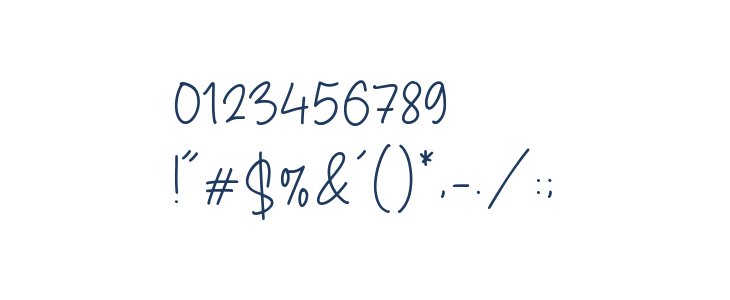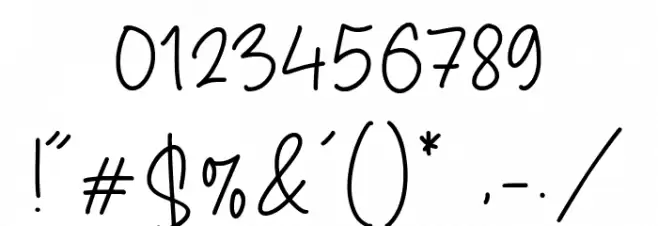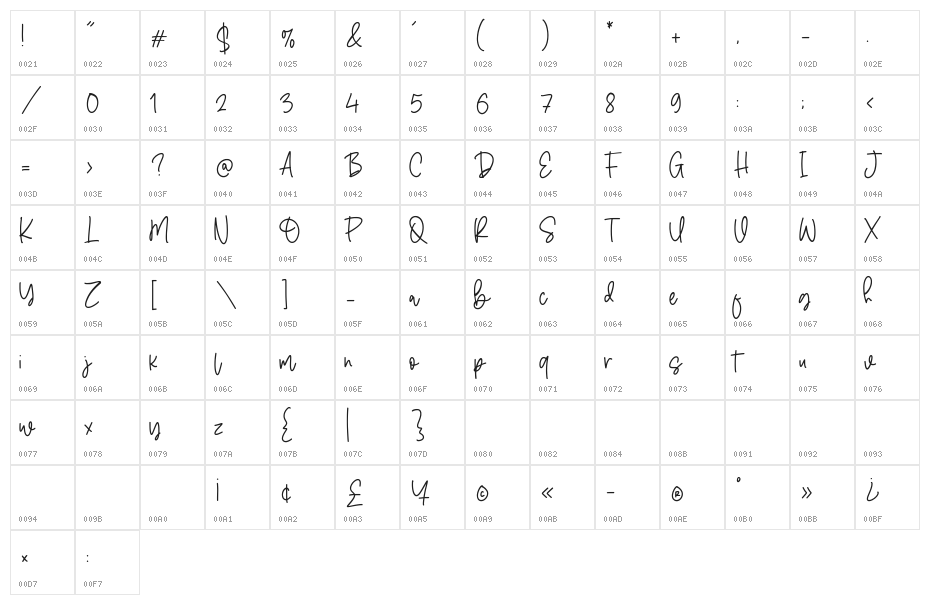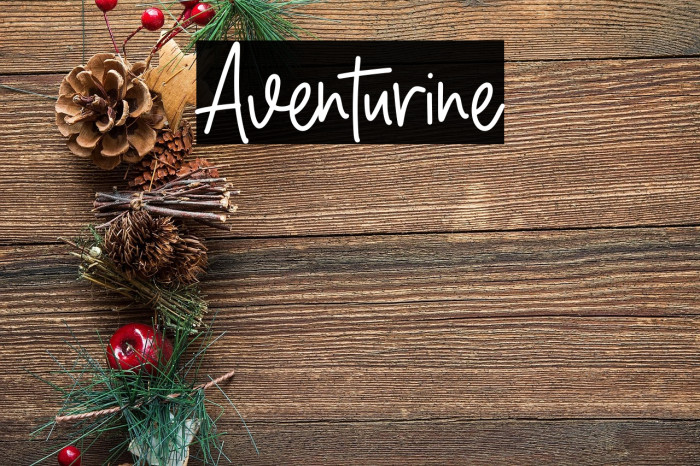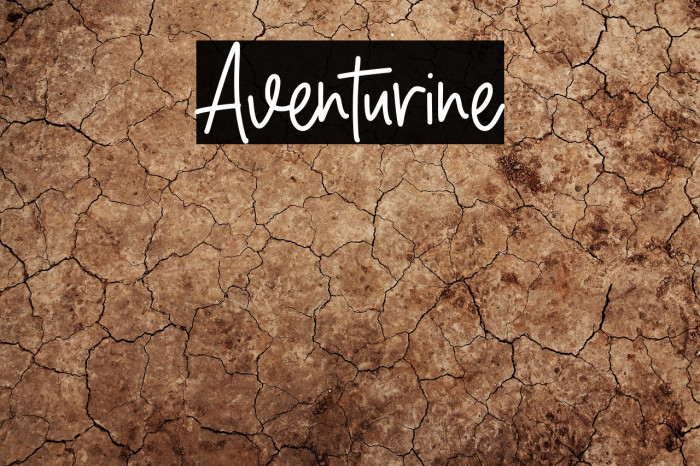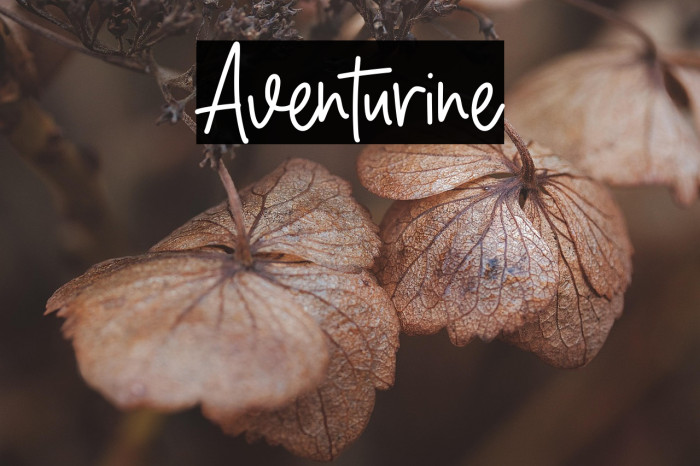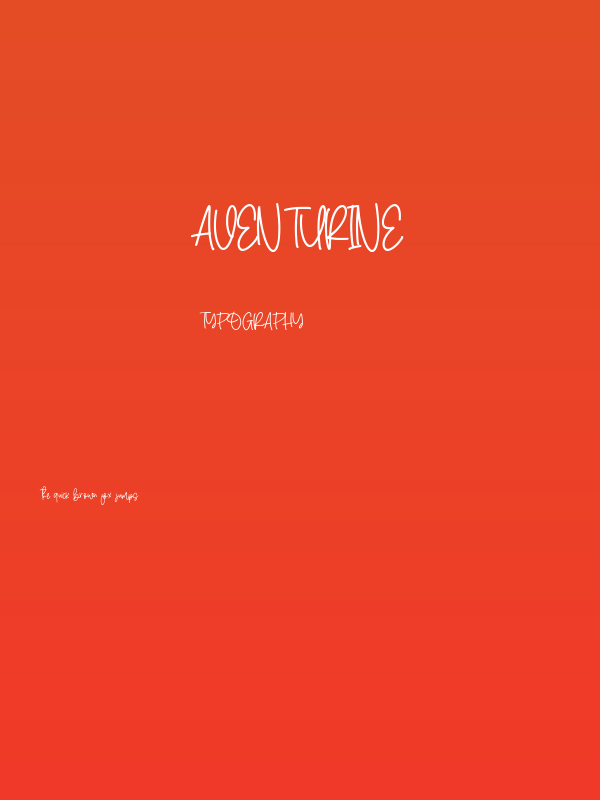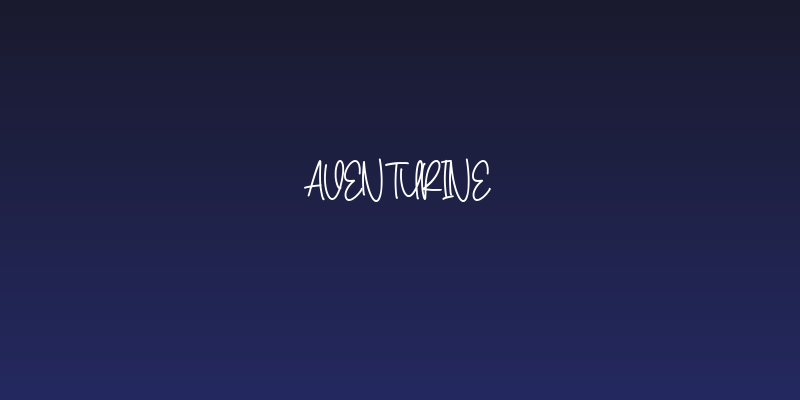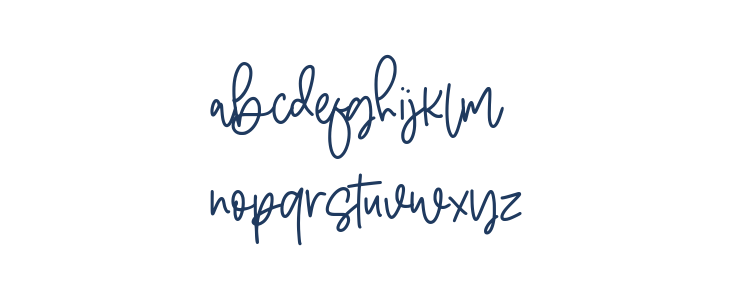
Aventurine Font
Aventurine Description
This font features a playful and casual handwritten style, characterized by its flowing and slightly irregular letterforms. The uppercase letters are bold and expressive, with a slight slant that adds to the dynamic feel. Lowercase letters maintain a consistent style, with loops and curves that enhance the handwritten aesthetic. The numerals are clear and legible, matching the overall informal tone. Special characters are creatively integrated, maintaining the font's cohesive look. This font exudes a sense of spontaneity and creativity, making it ideal for projects that require a personal touch.